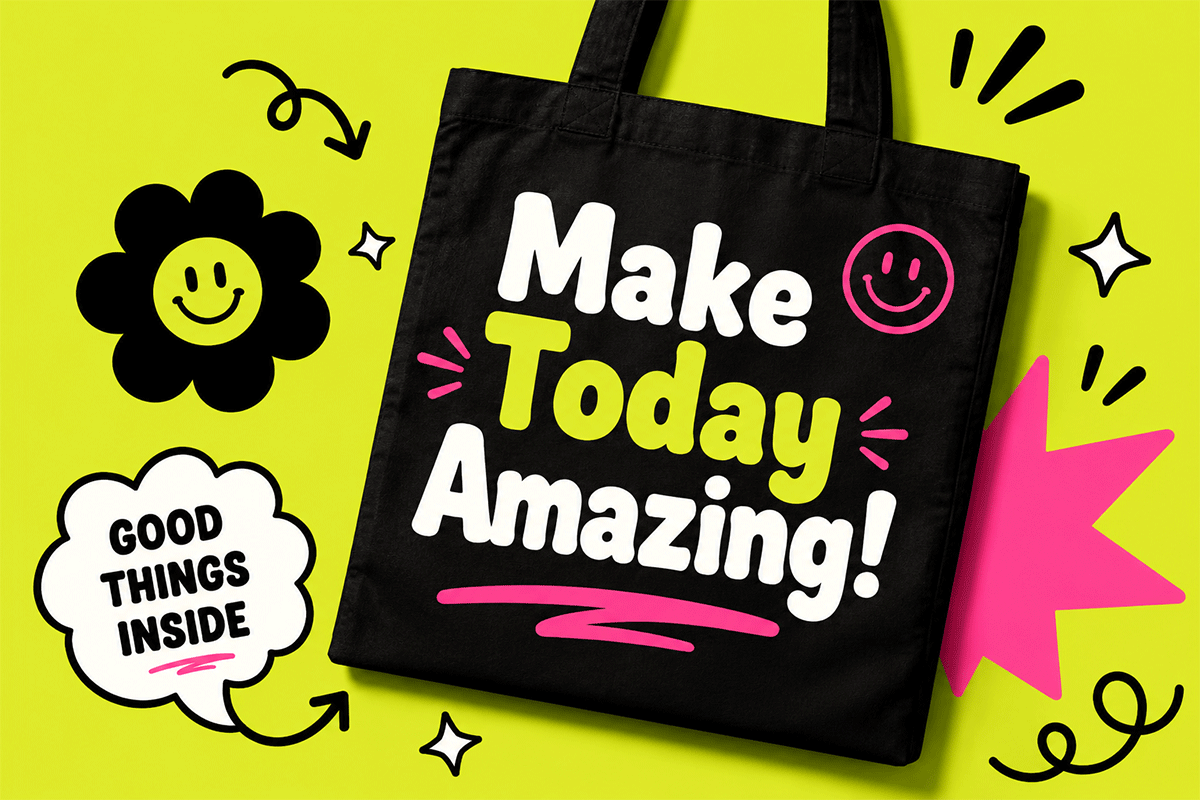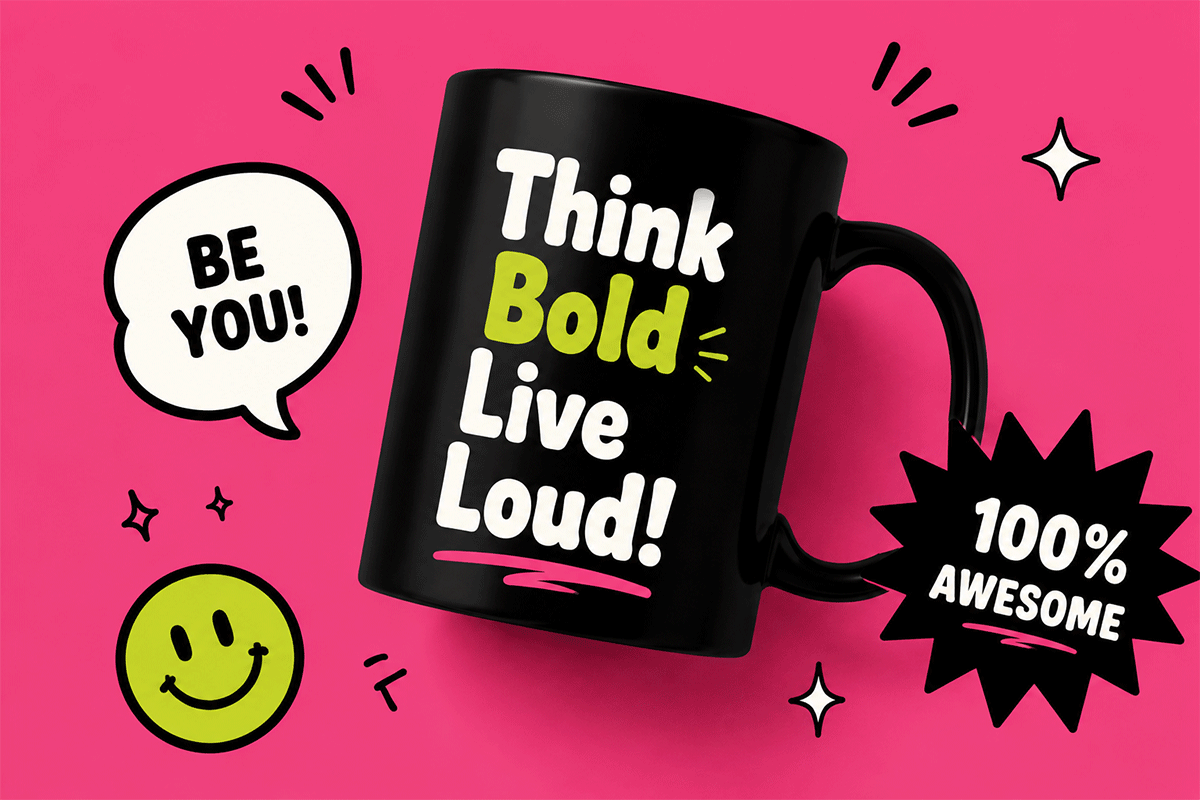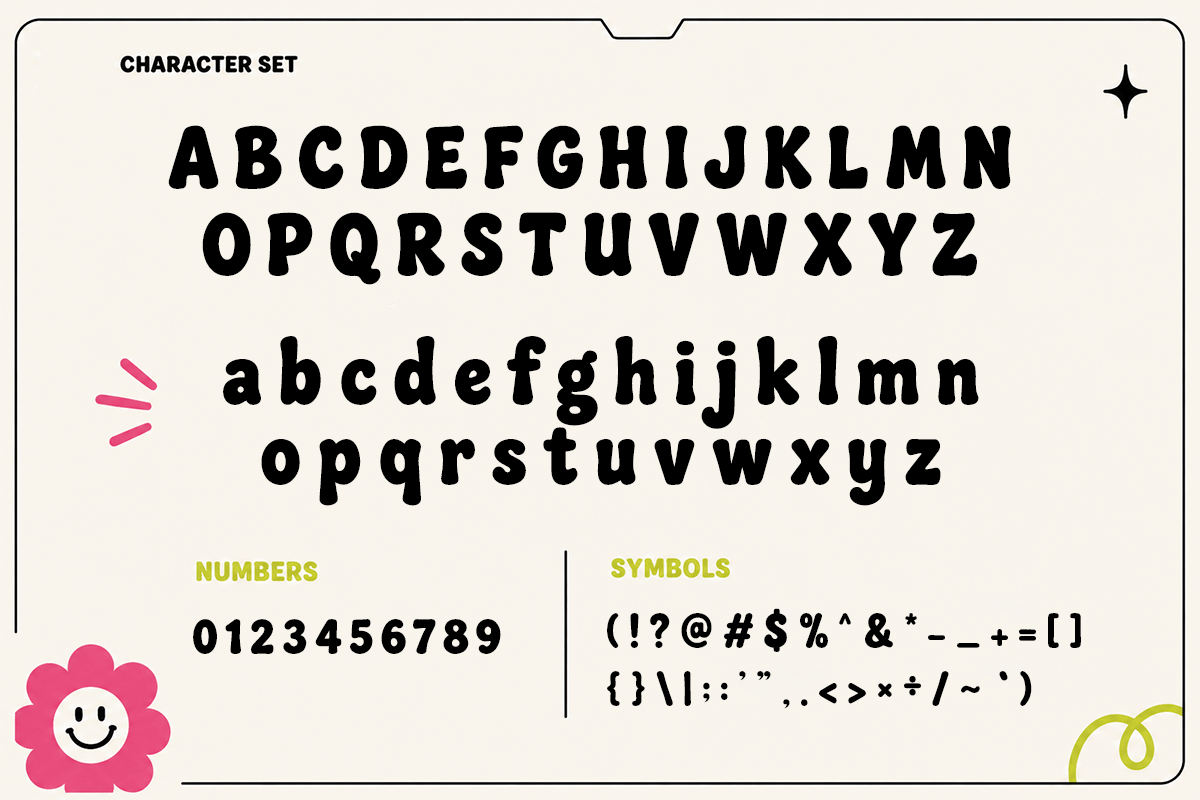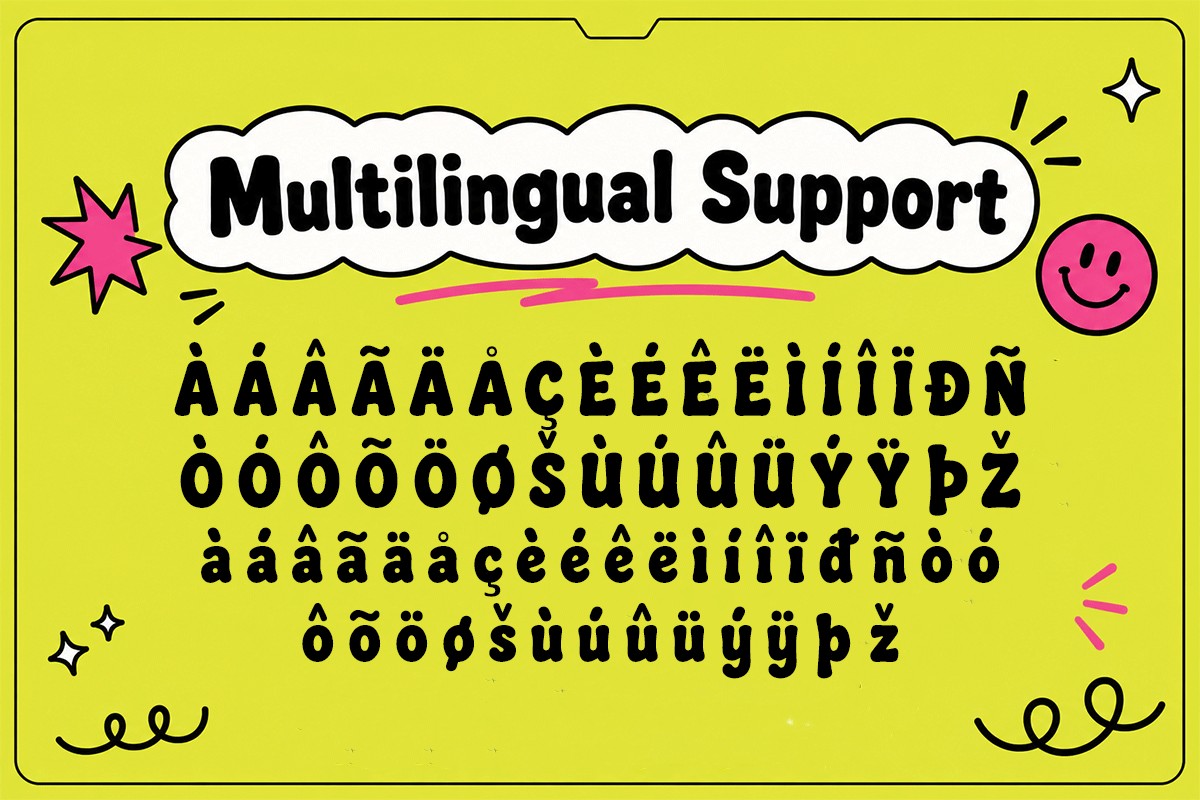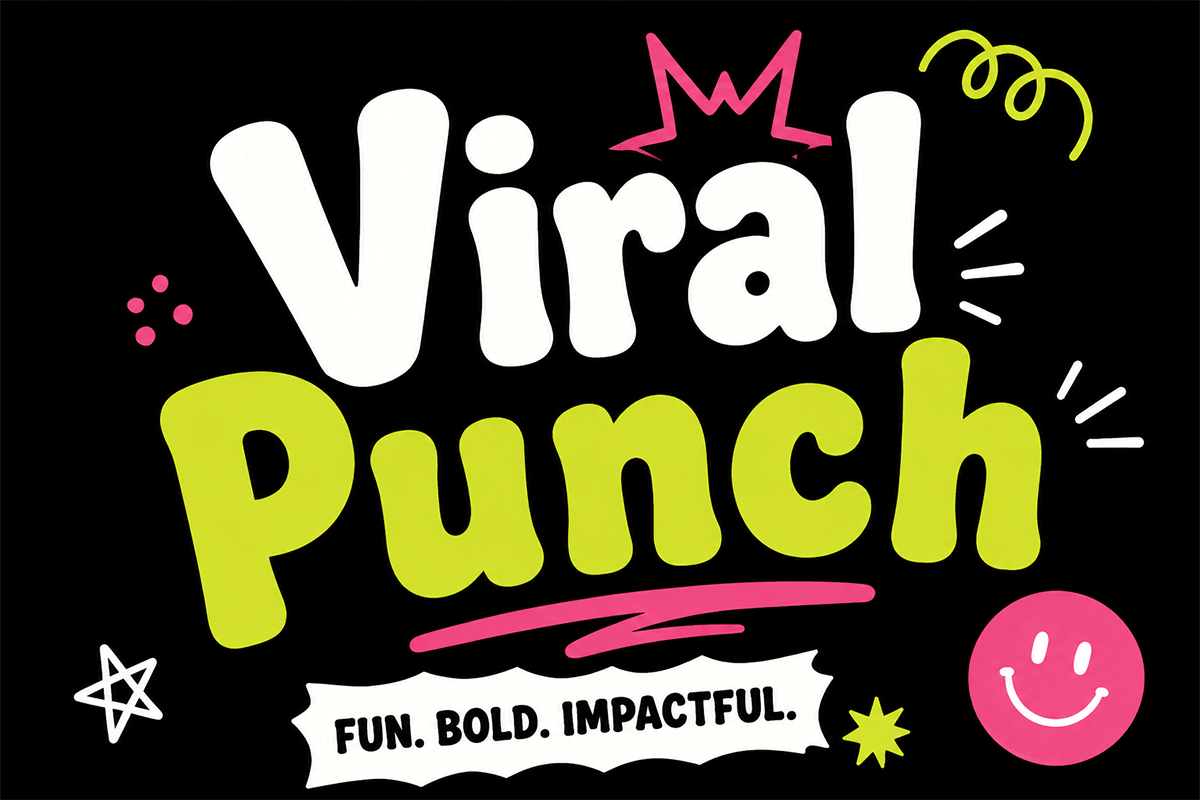
Viral Punch A Modern Cute Bold Font is a playful display font designed to grab attention instantly. Featuring chunky letterforms, soft rounded edges, and an energetic handwritten attitude, this typeface brings a perfect mix of fun, confidence, and modern pop culture appeal.
Inspired by viral social media graphics, comic-style headlines, street posters, kids branding, and bold advertising campaigns, Viral Punch A Modern Cute Bold Font is built to make every word feel loud, exciting, and impossible to ignore. Its thick, friendly shapes create a cheerful visual impact while remaining highly readable across digital and print applications.
Whether you're designing YouTube thumbnails, playful branding, children's products, social media posts, packaging, stickers, merchandise, or promotional materials, Viral Punch A Modern Cute Bold Font delivers a strong and memorable voice that stands out from the crowd.